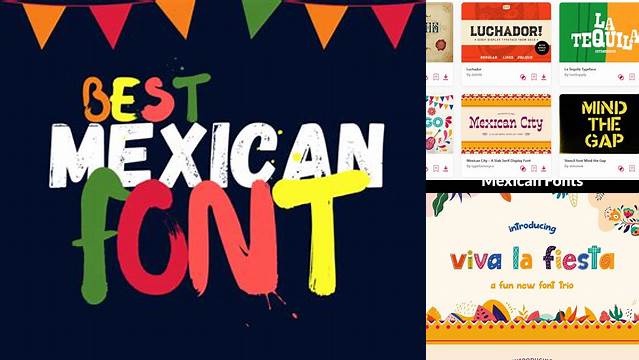
Free Latino Fonts: Spice Up Your Designs
Hey guys, are you looking to add some flair and vibrancy to your design projects without breaking the bank? Well, you're in luck! Today, we're diving deep into the world of free Latino fonts. These aren't just any old fonts; they're designed to capture the spirit, energy, and rich cultural heritage of Latin America. Whether you're working on a poster for a vibrant festival, a logo for a new restaurant, or even just a personal blog post, using the right font can make all the difference. We're going to explore where to find them, what makes them special, and how you can use them to make your designs pop. So, grab your coffee, get comfy, and let's get creative with some awesome free Latino fonts!
Understanding the Appeal of Latino Fonts
The appeal of Latino fonts is multifaceted, guys. It goes beyond just aesthetics; it taps into a rich tapestry of cultural expression and identity. These fonts often draw inspiration from historical scripts, traditional art forms, and the dynamic urban landscapes of Latin America. Think of the bold, decorative lettering seen on old signs in Mexico City, the intricate calligraphic styles found in ancient manuscripts, or the playful, energetic graffiti that adorns walls in vibrant barrios. Each style carries its own story and evokes a unique set of emotions and associations. For designers, this means access to a toolkit that can instantly inject warmth, passion, and a sense of community into their work. They can evoke feelings of nostalgia, celebration, or even a touch of romanticism. The diversity within Latino fonts is also incredible, ranging from elegant and sophisticated scripts that speak of timeless tradition to modern, edgy sans-serifs that reflect contemporary Latin American culture. When you choose a Latino font, you're not just picking letters; you're choosing a piece of cultural heritage, a narrative, and an attitude. This makes them incredibly powerful tools for brands and individuals looking to connect with audiences on a deeper, more emotional level, creating designs that are not only visually appealing but also culturally resonant and deeply engaging. The inherent expressiveness and character embedded in these typefaces make them perfect for projects that aim to feel authentic, lively, and full of soul.
Exploring Diverse Styles in Free Latino Fonts
When we talk about free Latino fonts, it's crucial to understand the sheer diversity within this category, guys. It’s not just one monolithic style; it’s a spectrum of influences and expressions. You've got fonts inspired by traditional Mexican folk art, characterized by their ornate details, vibrant flourishes, and often a hand-drawn, rustic feel. These are perfect for adding an artisanal touch to invitations, food packaging, or anything that needs to feel handcrafted and authentic. Then there are fonts that echo the elegance of Spanish calligraphy, featuring graceful curves, sharp serifs, and a timeless sophistication. These are fantastic for wedding stationery, luxury branding, or projects aiming for a more refined aesthetic. Don't forget the influence of modern Latin American design, which brings bold geometric shapes, strong contrasts, and a contemporary edge. These fonts are ideal for branding, editorial design, and web projects that need to feel fresh and forward-thinking. We also see fonts influenced by street art and graffiti, offering a raw, energetic, and often rebellious vibe. These are great for youth-oriented brands, music posters, or any design that needs to convey a sense of urban dynamism and freedom. The beauty of exploring these diverse styles is that you can find a Latino font to match virtually any mood or message. Each style brings its own cultural context and emotional weight, allowing you to tell a richer, more nuanced story with your designs. It’s about finding that perfect typeface that not only looks good but also feels right, connecting with the intended audience on a deeper, more personal level through its unique stylistic characteristics and cultural undertones. This exploration is key to unlocking the full potential of these free resources.
Best Free Latino Fonts for Different Projects
Alright, let's get down to the nitty-gritty, guys. Which free Latino fonts are best suited for various projects? For vibrant event posters or flyers, you'll want something bold and eye-catching. Think display fonts with a distinct personality, perhaps with a hint of retro flair or a playful script. Fonts that mimic hand-painted signs or have a brush-stroke effect can really bring that festive energy. For logos and branding, versatility and legibility are key. A clean sans-serif with a slightly unique character or a sophisticated serif that hints at tradition can work wonders. If your brand has a more artisanal or organic feel, a hand-drawn font with subtle imperfections might be the perfect fit. For websites and blogs, readability across different screen sizes is paramount. A well-balanced script font can add a touch of elegance for headings, while a sturdy, clear sans-serif or serif will ensure your body text is easy to read. For social media graphics, you can afford to be a bit more experimental. Fun, quirky fonts that capture attention quickly are ideal here. Think about the message you want to convey: is it celebratory, sophisticated, modern, or traditional? Match the font's personality to your project's goals. For instance, if you're designing for a Mexican restaurant, a font with strong serifs and perhaps some subtle decorative elements might evoke authenticity. If it's for a salsa music event, a dynamic, energetic script font would be more appropriate. The key is to explore the vast landscape of free Latino fonts and experiment until you find that perfect match that speaks the language of your project.
Bold and Festive Fonts for Events
When it comes to designing for events, especially those with a lively, celebratory vibe, you need fonts that scream excitement, guys! Bold and festive free Latino fonts are your secret weapon. We're talking about typefaces that have personality, that grab attention from across the room, and that make people feel the energy of the occasion. Think about fonts inspired by traditional fiesta banners, hand-painted signs you see at bustling mercados, or even the vibrant typography often found in Latin American Carnival celebrations. These fonts usually feature strong, thick strokes, playful flourishes, and maybe even a slightly distressed or textured look that adds to their character. They work brilliantly for posters announcing a salsa night, flyers for a Dia de los Muertos festival, or even invitations to a jubilant wedding reception. The goal is to create a visual impact that immediately communicates fun, tradition, and a sense of gathering. Don't be afraid to go for fonts with decorative elements or unique ligatures that add an extra layer of visual interest. They often have a hand-drawn quality that makes them feel more approachable and authentic. When choosing, consider the specific event: a quinceañera might call for something a bit more ornate and romantic, while a street food festival could benefit from a chunkier, more rustic font. The most important thing is that the font feels alive and infectious, setting the right tone from the very first glance and ensuring your event materials are as memorable as the event itself.
Choosing Scripts for Celebratory Occasions
Script fonts, guys, can be absolute showstoppers when it comes to celebratory occasions, especially those with a Latino influence. They bring an immediate sense of elegance, festivity, and personal touch that blockier fonts just can't replicate. When you're looking for free Latino script fonts for events like weddings, anniversaries, or even festive holiday gatherings, you want something that flows beautifully and feels warm and inviting. Think about scripts that evoke the romance of old-world letters, perhaps with sweeping ascenders and descenders, delicate loops, and a graceful rhythm. Some scripts might have a more casual, brush-like feel, perfect for a lively birthday party or a relaxed engagement announcement, adding a touch of spontaneous joy. Others might lean towards a more formal, calligraphic style, ideal for formal invitations where sophistication is key. The key is to find a script that aligns with the specific tone of your celebration. For instance, a wedding invitation might benefit from a refined, classic script, while a graduation party could handle a more modern, dynamic script. Always ensure the script font is legible, especially for important details like dates and times. Sometimes, pairing a decorative script for the main titles with a simpler, readable font for the body text is the best strategy. The goal is to create a feeling of warmth, elegance, and heartfelt celebration, making your guests feel special from the moment they receive your invitation or see your announcement.
Elegant Serif Fonts for Sophisticated Brands
For brands aiming for an air of sophistication and timelessness, elegant free Latino serif fonts are an absolute must-have in your design arsenal, guys. Serif fonts, with their small decorative strokes (the 'serifs') at the ends of the main strokes of letters, inherently convey a sense of tradition, authority, and refined quality. When you look at Latino-influenced serifs, you might find subtle nods to classic European typography, blended with a certain warmth or character that feels uniquely Latin American. These fonts are perfect for luxury goods, high-end restaurants, legal firms, academic institutions, or any business that wants to project an image of trustworthiness, heritage, and established expertise. Imagine a beautifully crafted serif font on the cover of a historical novel or the letterhead of a prestigious law firm – it just works. They lend an air of gravitas and intellectual depth. When choosing, pay attention to the weight and spacing of the font. A lighter weight and generous spacing can feel more airy and modern, while a heavier weight and tighter spacing can feel more traditional and substantial. Some Latino-inspired serifs might incorporate unique swashes or ligatures that add a touch of flair without sacrificing elegance. Using these fonts in your branding, website, or marketing collateral helps establish a strong, credible identity that resonates with audiences seeking quality and established values. They speak of substance and enduring style, making them invaluable for creating a lasting impression of class and reliability.
Utilizing Ligatures and Swashes for Distinction
Want to really make your elegant serif fonts stand out, guys? It’s all about embracing the power of ligatures and swashes! These are those fancy little extras that designers adore. Ligatures are special characters where two or more letters are joined together into a single glyph. For example, the letters 'fi' might be combined so the dots don't clash, or 'ae' might be joined elegantly. In more decorative fonts, you might find ligatures for common letter pairs like 'th,' 'st,' or 'ch' that create a smoother, more connected flow. Swashes, on the other hand, are decorative flourishes – extended strokes or extra curls added to letters, typically at the beginning or end of a word. Think of a beautifully elongated 'S' or a dramatic loop on a 'T'. When used judiciously with free Latino serif fonts, these elements can elevate your design from good to absolutely stunning. They add a unique personality and a bespoke feel, making your typography look custom-made rather than off-the-shelf. For sophisticated branding or invitations, incorporating a few well-placed ligatures or a subtle swash on a key letter can create a memorable signature for your design. The trick is not to overdo it; too many flourishes can make a design look cluttered or unprofessional. Use them strategically to draw attention to specific words or to enhance the overall elegance and flow of the text. It’s these refined details that signal attention to craftsmanship and sophisticated taste, truly setting your work apart.
Modern Sans-Serif Fonts for Contemporary Vibes
In today's fast-paced digital world, modern free Latino sans-serif fonts are essential for creating a contemporary and approachable feel, guys. Sans-serifs, meaning 'without serifs,' are known for their clean lines, simplicity, and excellent legibility, especially on screens. When you find Latino-inspired sans-serifs, they often blend geometric clarity with a subtle warmth or a unique character that reflects modern Latin American design sensibilities. These fonts are incredibly versatile and work well for a wide range of applications, from website interfaces and app designs to corporate branding and marketing materials. They convey a sense of efficiency, clarity, and forward-thinking. Think of the clean, minimalist branding of a tech startup or the user-friendly interface of a popular app – chances are, they're using a modern sans-serif. When exploring free options, look for fonts that have a good range of weights (light, regular, bold) and styles (italic), as this flexibility is crucial for creating hierarchy and visual interest in your designs. Some modern sans-serifs might feature slightly rounded corners for a softer feel, while others might have sharp, geometric forms for a more minimalist aesthetic. The key is to find one that balances clean design with a touch of personality that resonates with your target audience. They are the workhorses of contemporary design, providing a solid foundation that is both functional and aesthetically pleasing, ensuring your message is communicated clearly and stylishly.
Pairing Fonts for Web and App Design
Pairing fonts effectively is a game-changer for web and app design, guys, especially when working with free Latino fonts. The goal is to create a visually appealing and user-friendly experience where text is easy to read and navigate. A common and highly effective strategy is to pair a more distinctive font for headings with a highly legible font for body text. For instance, you could use a free Latino script font with a bit of flair for your main titles or section headers to grab attention and inject personality. Then, pair it with a clean, straightforward sans-serif or a simple serif font for the bulk of your content. This contrast ensures that the eye is drawn to the important information while still being able to comfortably read paragraphs of text. Another approach is to use different weights or styles from the same font family. A bold, uppercase version of a sans-serif for headings and a regular, lowercase version for body text can create a cohesive yet hierarchical design. When selecting fonts for web and app use, always prioritize legibility on various screen sizes and resolutions. Test your chosen pairings on different devices to ensure they look and read well everywhere. Remember, good typography enhances user experience, making your website or app more engaging and professional. It’s about creating a harmonious typographic system that guides the user and makes information accessible and enjoyable to consume, using the rich character of Latino fonts.
Creative Ways to Use Free Latino Fonts
Let's talk about getting creative with these awesome free Latino fonts, guys! Beyond just putting them on a flyer, there are so many cool ways to incorporate them into your projects. Think about using them for unique social media graphics – imagine a bold, festive font for a celebratory Instagram post or an elegant script for a personal brand announcement. They can also add a fantastic touch to digital scrapbooking or creating personalized stationery. Have you considered using them for designing custom t-shirts or tote bags? A striking Latino font can make for a really unique piece of wearable art. For bloggers, incorporating a signature Latino font for your blog title or important quotes can give your site a distinct personality. Even in presentations, using a unique font for slide titles can make your information more engaging. Don't be afraid to experiment with layering fonts, using them in unexpected color combinations, or even applying textures and effects to them. You could create custom digital invitations for parties, design unique quote graphics for Pinterest, or even use them as a basis for hand-lettering practice. The possibilities are truly endless when you start thinking outside the box. It's all about letting the vibrant character of these fonts inspire your creativity and bring a unique flair to whatever you're working on, making your projects truly stand out from the crowd and connect with your audience on a more personal level.
Designing Eye-Catching Social Media Graphics
Social media is all about making a splash, guys, and eye-catching graphics are your ticket to standing out in a crowded feed. This is where free Latino fonts can truly shine! Imagine creating a vibrant Instagram post announcing a special offer for a Mexican restaurant – using a bold, slightly decorative Latino font for the main text can instantly convey the brand's lively spirit. Or perhaps you're sharing a personal travel diary on Facebook; a charming, hand-drawn Latino script font for your post title can add a touch of warmth and personality. These fonts are perfect for creating quote graphics, event announcements, or promotional banners that need to grab attention quickly. Think about using fonts that evoke celebration, warmth, or a sense of tradition, depending on your content. For example, a font inspired by traditional Mexican papel picado could be stunning for a holiday-themed graphic. When designing, consider the platform's aspect ratio and typical viewing context. Graphics are often seen quickly as users scroll, so your font choice needs to be impactful and legible at smaller sizes. Don't be afraid to play with color! Vibrant hues often complement Latino-inspired fonts beautifully. Using a unique font can help build brand recognition and make your social media content instantly recognizable and memorable, ensuring your message cuts through the noise and resonates with your followers.
Personalizing Digital Invitations and Announcements
Making your digital invitations and announcements feel special and unique is easy when you tap into the power of free Latino fonts, guys. Forget those generic templates; these fonts let you infuse your message with personality, warmth, and cultural flavor. Planning a wedding? A beautiful, flowing Latino script font can add an elegant and romantic touch to your save-the-dates or main invitations, making guests feel the joy before the event even begins. Throwing a birthday party or a fiesta? Opt for a bold, playful font that screams celebration and fun! Perhaps you're announcing a new business venture or a special event. A sophisticated serif or a clean, modern sans-serif with a subtle Latino influence can lend an air of professionalism while still feeling approachable and unique. The beauty of using these fonts is that they can instantly evoke a specific mood or theme. A font inspired by vintage Latin American posters might be perfect for a retro-themed party invitation, while a contemporary, geometric font could suit a modern art exhibition opening. Always ensure the essential details – date, time, location, RSVP information – are clear and legible, even if you're using a highly decorative font for the main title. Combining a feature font with a simpler, readable font for the finer details is often the best approach. This way, you create an invitation that's not only informative but also a beautiful piece of design that reflects your personal style and the spirit of your occasion.
Adding Flair to Blogs and Personal Websites
Guys, if you have a blog or a personal website, you know how important it is to create a distinct voice and visual identity. Free Latino fonts can be an incredible tool for adding that unique flair and making your online space truly your own. Imagine using a charming, slightly rustic Latino script font for your blog's main title or tagline. It immediately gives your site a warm, inviting, and perhaps even an artisanal feel, depending on the font. This can be particularly effective if your blog covers topics related to culture, travel, food, or art. For section headings or important pull quotes within your articles, choosing a bold or distinct Latino font can help break up the text, guide the reader's eye, and emphasize key points. It adds visual interest and makes the content more engaging. Even if your main body text needs to be highly readable (and it should be!), using a signature font for titles and subheadings creates a consistent and memorable aesthetic. Consider a clean, modern Latino sans-serif for a sleek, professional look, or a classic serif with a subtle Latin twist for a more literary or historical feel. Experiment with different font pairings to find what best represents your personality and the theme of your website. The right typography can transform a simple blog into a captivating online experience, making visitors want to stay longer and explore more of your content, all thanks to the expressive power of these free fonts.
Using Fonts for Quote Graphics and Pull Quotes
Leveraging free Latino fonts for quote graphics and pull quotes is a fantastic way to add personality and visual punch to your content, guys. Whether it's on a blog, social media, or even within a presentation, a well-chosen quote graphic can stop the scroll and make readers pause. For these elements, you often want a font with a strong character that can stand alone visually. Think about using a bold, decorative Latino font that commands attention for a particularly impactful quote. Perhaps a swirling, elegant script font would be perfect for a romantic or inspirational saying. The key is to select a font that amplifies the message of the quote itself. If the quote is profound and thought-provoking, a more serious, perhaps serif-based Latino font might be suitable. If it's witty or celebratory, a more playful font would work. Remember to ensure contrast between the text and the background, and consider the overall design composition. Don't forget about legibility, even with decorative fonts; the quote should be easy to read at a glance. Sometimes, adding a subtle texture or overlay to the font can enhance its appeal. Using these fonts strategically for pull quotes within longer articles also helps to break up the text, highlight key takeaways, and make the reading experience more dynamic and enjoyable for your audience. It’s a simple yet effective design technique to boost engagement.
Hand-Lettering Practice with Latino Typefaces
Hey artists and aspiring letterers, want to level up your skills? Free Latino fonts can be amazing resources for hand-lettering practice, guys! These typefaces often embody unique styles, flourishes, and construction that are incredibly fun and educational to replicate by hand. Instead of just copying generic lettering, you're learning from fonts that are steeped in cultural aesthetics. Try tracing the intricate details of a font inspired by Mexican folk art, focusing on the curves and embellishments. Practice rendering the bold strokes and sharp angles of a modern Latino sans-serif, or the graceful flow of a calligraphic script. This process helps you understand letterforms, spacing, and composition in a deeper way. You can download a font you love, print it out, and use it as a guide. Or, for a more digital approach, you can trace over it in a design program like Procreate or Adobe Illustrator. By practicing with these specific styles, you're not just improving your drawing skills; you're also absorbing the visual language and spirit of Latin American design. It’s a fantastic way to broaden your typographic knowledge and develop a more versatile lettering style. Plus, it's incredibly rewarding to see your own hand-drawn versions of these beautiful fonts come to life. It’s a hands-on way to connect with typography and cultural artistry simultaneously, making practice feel less like a chore and more like an exploration.
Developing a Unique Lettering Style
Developing a truly unique lettering style is a journey, and incorporating free Latino fonts into your practice can definitely accelerate that process, guys. These fonts offer a rich palette of influences – from the ornate traditions of colonial calligraphy to the vibrant energy of contemporary street art. By studying and practicing with them, you begin to internalize different stylistic elements. Maybe you'll find yourself drawn to the flowing, organic curves found in some script fonts, or perhaps the bold, geometric structures of others. As you practice replicating these styles, you naturally start to mix and match elements, consciously or unconsciously. You might take the flair of a particular flourish from one font and combine it with the weight and structure of another. The goal isn't to perfectly copy the fonts, but to understand what makes them tick – their rhythm, their balance, their personality. This understanding allows you to experiment and adapt. You can start by isolating specific characteristics you admire, like a particular 'R' or a unique way of connecting letters, and then try to integrate those ideas into your own original lettering. Over time, through consistent practice and thoughtful experimentation inspired by diverse sources like Latino fonts, your own distinct voice and visual signature will emerge, making your hand-lettered work instantly recognizable and authentically yours.
Tips for Working with Free Latino Fonts
Alright, let's wrap things up with some practical tips for working with free Latino fonts, guys. First off, always double-check the license. We've hammered this home, but it's crucial for avoiding legal issues, especially if you're using them for commercial projects. Make sure the font allows for your intended use. Secondly, don't be afraid to experiment. Try pairing different Latino fonts together – a script for a heading and a sans-serif for body text, for example. See how they interact. Thirdly, consider legibility. While many Latino fonts are beautiful and decorative, ensure they're readable for the context. If it's for body text, prioritize clarity. For display purposes, you have more freedom. Fourth, think about the cultural context. Understand the origin and feel of the font you're using. Does it genuinely fit the message and audience of your project? Using a font respectfully and appropriately is key. Fifth, back up your fonts. Downloaded fonts can sometimes disappear from sources, or websites might go down. Keep a backup of your favorite free fonts in a safe place. Sixth, explore font management tools. As your collection grows, software like FontBase or Adobe Fonts (which also has many free options) can help you organize, preview, and activate fonts easily. Finally, keep learning and exploring. The world of typography is vast and constantly evolving. Continue discovering new free Latino fonts and practicing with them to enhance your design skills. These tips should help you make the most of these vibrant typographic resources!
Ensuring Legibility Across Devices
Ensuring your free Latino fonts look great and are easy to read across all sorts of devices is super important, guys, especially in today's multi-platform world. What looks stunning on a large desktop monitor might be a tiny, jumbled mess on a smartphone screen. For web and app design, this is non-negotiable. When choosing fonts, especially those with intricate details or thin strokes, test them at various sizes. Look for fonts that have clear distinctions between similar characters (like 'I,' 'l,' and '1') and good spacing between letters (kerning) and lines (leading). Many modern Latino sans-serifs are designed with screen readability in mind, offering clean forms and good legibility even at small sizes. If you opt for a more decorative script or serif font for headings, make sure it's used at a size where its details are clear and it doesn't become a blurry blob. Always preview your designs on actual devices – a phone, a tablet, and a desktop. Use browser developer tools or app preview features to simulate different screen sizes. If a font struggles with legibility, consider pairing it with a more robust, readable font for body text or adjusting its size and weight. Sometimes, a simple decrease in letter spacing or an increase in line height can make a huge difference. It’s all about striking that balance between stylistic expression and functional clarity, ensuring your message is accessible to everyone, everywhere.
Font Pairing for Readability and Aesthetics
Ah, font pairing, the art of making two or more fonts play nicely together, guys! It’s essential for creating visually appealing and readable designs, especially when using diverse free Latino fonts. The golden rule? Aim for contrast, not conflict. A common and effective pairing is a decorative or script font for headlines, combined with a clean, simple sans-serif or serif font for body text. For example, a bold, festive Latino display font for your title can be beautifully complemented by a highly legible, neutral sans-serif for the paragraphs that follow. This creates a clear visual hierarchy – drawing attention to the main message while ensuring the supporting information is easy to digest. Another approach is to pair fonts from different categories but with a shared characteristic, like a similar x-height or a subtle warmth in their design. You could pair an elegant Latino serif with a modern Latino sans-serif if they share a certain geometric quality or a similar mood. Avoid pairing fonts that are too similar; they can end up competing and making the design feel muddled. Always test your pairings! View them at different sizes and on different screens to ensure they work harmoniously. Good font pairing guides the reader’s eye, enhances the aesthetic appeal, and ensures your message is communicated effectively and elegantly, making full use of the character that Latino fonts offer.
Combining Latino Fonts with Other Elements
To make your designs truly sing, guys, it’s not just about the free Latino fonts themselves, but how you combine them with other design elements. Think of the font as a key ingredient; it needs the right supporting cast to shine. When using a vibrant Latino font, consider pairing it with colors that complement its energy – perhaps warm earthy tones, bright fiesta hues, or deep, rich contrasts. If your font has a rustic feel, perhaps incorporating textures like paper, wood, or subtle grunge can enhance that aesthetic. For a more modern Latino font, clean layouts, ample white space, and perhaps geometric graphic elements can create a sophisticated look. Illustrations or icons that draw inspiration from Latin American art or culture can also work beautifully alongside these fonts, reinforcing the theme. For instance, pairing a bold, traditional-looking font with intricate folk art-inspired illustrations can create a powerful visual narrative. Conversely, a sleek, minimalist Latino font might pair well with abstract shapes or gradients. The key is to create a cohesive look where the font, colors, imagery, and layout all work together to tell a unified story and evoke the desired mood or message. It’s about balance and harmony, ensuring every element supports the overall impact of your design.
Leveraging Color Palettes with Latino Typography
Color and Latino typography are a match made in heaven, guys! The vibrant cultures that inspire these fonts are often rich with bold and expressive color palettes. When choosing colors to accompany your free Latino fonts, think about the mood you want to evoke. For festive designs, consider bright, saturated colors like sunny yellows, vibrant oranges, deep reds, and turquoise blues – colors often seen in Latin American textiles and celebrations. These can make bold display fonts pop and add an energetic feel. If your font has a more traditional or rustic vibe, you might opt for earth tones – warm browns, terracotta, deep greens, and ochre – to create a sense of groundedness and authenticity. For elegant serif or script fonts aiming for sophistication, consider richer, deeper tones like burgundy, navy blue, emerald green, or even classic black and white with metallic accents (gold or silver). White space is also a crucial 'color' to consider; it allows your typography to breathe and prevents the design from feeling overwhelming. Don't be afraid to use strong contrasts, like dark text on a light background or vice-versa, to ensure legibility. Ultimately, the right color palette will amplify the inherent character of the Latino font, making your design more impactful, emotionally resonant, and visually stunning.
Exploring Texture and Backgrounds
Texture and backgrounds can seriously elevate your use of free Latino fonts, guys, adding depth and context to your designs. Think about the materials and environments that inspire these fonts: sun-baked adobe walls, intricately woven textiles, aged paper, vibrant street murals. Incorporating similar textures can make your typography feel more grounded and authentic. For example, if you're using a rustic, hand-drawn Latino font, placing it over a subtle background texture like burlap, distressed wood, or handmade paper can really enhance its character. For a more urban or gritty feel, a background resembling concrete, brick, or spray-painted surfaces might be appropriate. Even digital textures, like subtle noise, grain, or watercolor washes, can add a unique tactile quality. When choosing backgrounds, ensure they don't overpower your text. A busy background can make even the most legible font difficult to read. Often, a subtle, low-contrast background or a simple block of color that complements the font works best. You can also try applying textures directly to the font itself – imagine a font filled with a wood grain pattern or a metallic sheen. This integration of texture and typography creates a richer, more immersive visual experience, making your designs more memorable and engaging.
Using Subtle Overlays and Effects
Want to add that extra bit of polish to your designs featuring free Latino fonts, guys? Subtle overlays and effects can be your best friend. These aren't about flashy animations, but rather about adding depth, texture, or a specific mood to your typography. Think about applying a gentle grunge or distressed overlay to a bold font to give it a vintage or worn-in feel, perfect for evoking a sense of history or authenticity. A subtle paper or canvas texture overlay can make digital text appear more tactile and less